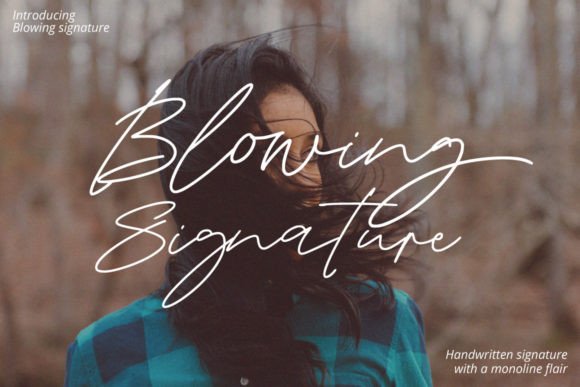
Introducing the Blowing Signature Font, a luxurious handwritten font that will add a touch of elegance and sophistication to your designs. With its delicate strokes, flowing curves, and ornate flourishes, this font exudes refinement and charm. Whether you're creating branding materials, invitations, or editorial designs, Blowing Signature is the perfect choice for adding a touch of sophistication to your work.
Blowing Signature is a versatile font that can be used for a wide range of projects, from personal blogs and websites to professional marketing materials. It's also perfect for use in lettering tattoos, as its delicate lines and intricate details will create a truly unique and eye-catching design.
This stunning font is PUA encoded, which means you can easily access all of its amazing glyphs and ligatures. This makes it incredibly easy to create beautiful and intricate designs with just a few clicks.